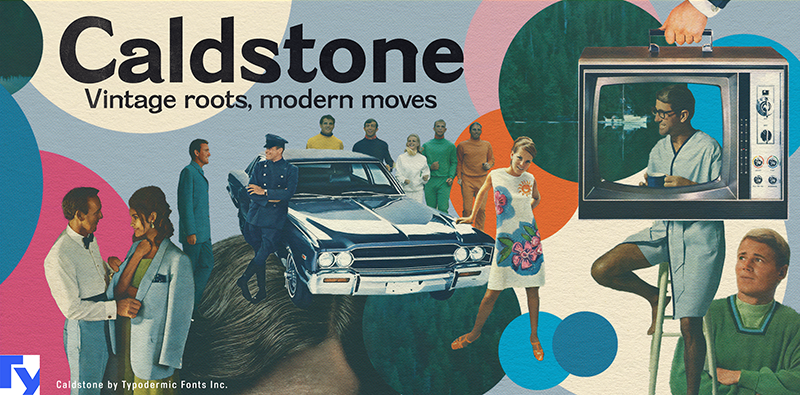
Caldstone
Caldstone is a display sans-serif inspired by the expressive lettering of the 1910s and the ornate revivals of the 1960s. Decorative curls and spurs—details more often seen in serif designs—give it a distinctive personality, while clean proportions and careful spacing keep it comfortable in modern layouts. Rather than reviving a single antique source, Caldstone blends early-20th-century charm with contemporary versatility. Its warm, exuberant character offers an alternative to minimalist sans-serifs, making it well suited to branding, editorial design, packaging, and other display-driven typography. These fonts include a license that allows free commercial use: sometimes referred to as a desktop license. This allows you to install the fonts on a computer and use them to create posters, web graphics, game graphics, t-shirts, videos, signs, logos and more. Read the license agreement for details. If you'd like to embed this font in an app, on the web or anything that's not covered by the desktop license agreement, visit the link below. You'll find distributors who offer different types of licenses, or you can contact me for help. https://typodermicfonts.com/caldstone/ These free fonts are part of a larger font family. Check out the rest of the family through the link above.